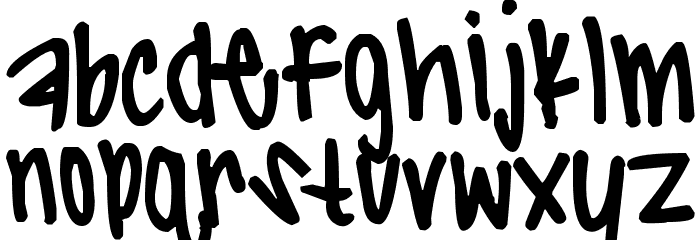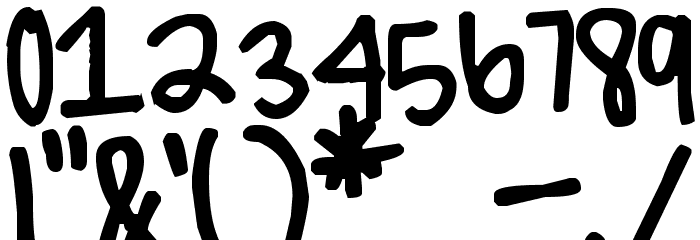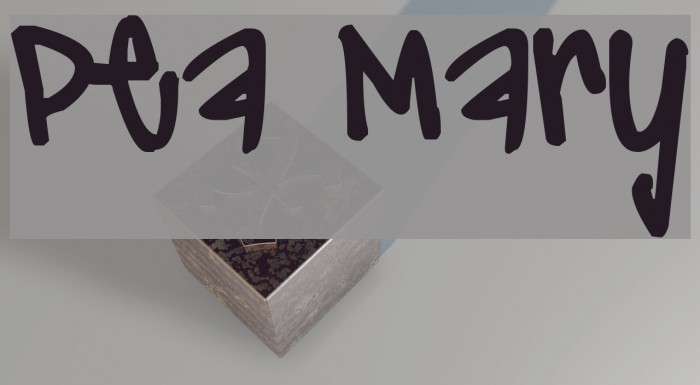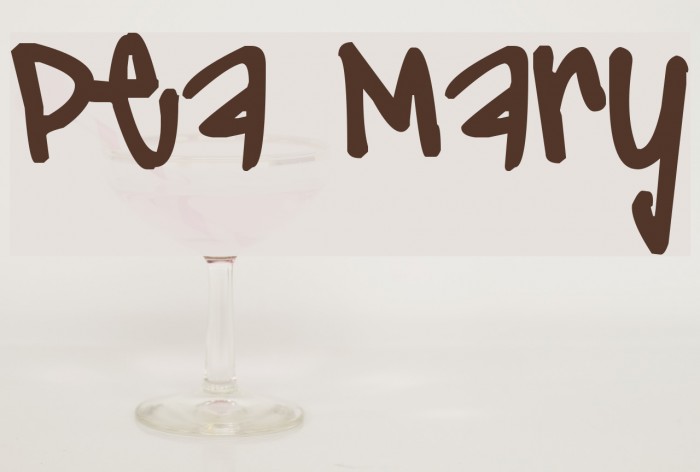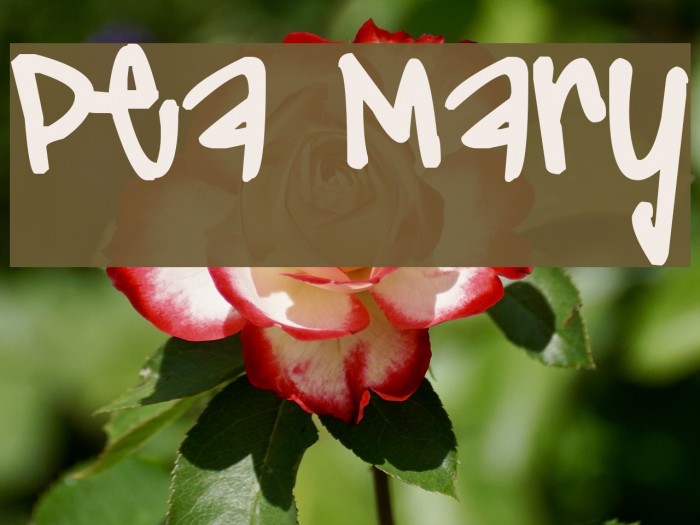
Pea Mary Font
This font features a playful and informal handwritten style, characterized by its bold and slightly irregular strokes. The letters have a casual, friendly appearance, with a mix of rounded and angular elements that give it a unique charm. The uppercase and lowercase letters maintain a consistent flow, while the numbers and special characters complement the overall aesthetic. This font's organic and spontaneous feel makes it ideal for projects that require a personal touch.
A playful, bold handwritten font with a casual and friendly style.
- Proposed Projects: Ideal for greeting cards, children's books, personal blogs, and informal branding projects.
- Overall Style: Casual
- Use Case: Headlines, Informal text, Personal projects